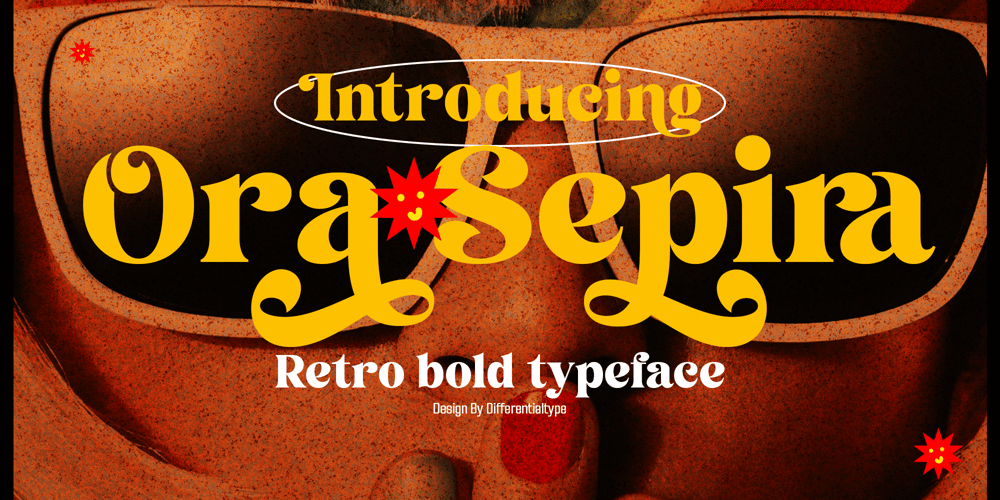
Ora Sepira Font Family was designed by Sidik Sidik and published by Differentialtype. Ora Sepira contains 2 styles and family package options. Ora Sepira is a retro bold serif font. This font is specially designed for a charming, elegant and retro appearance. It is suitable for various types of designs to add luxury to your project.